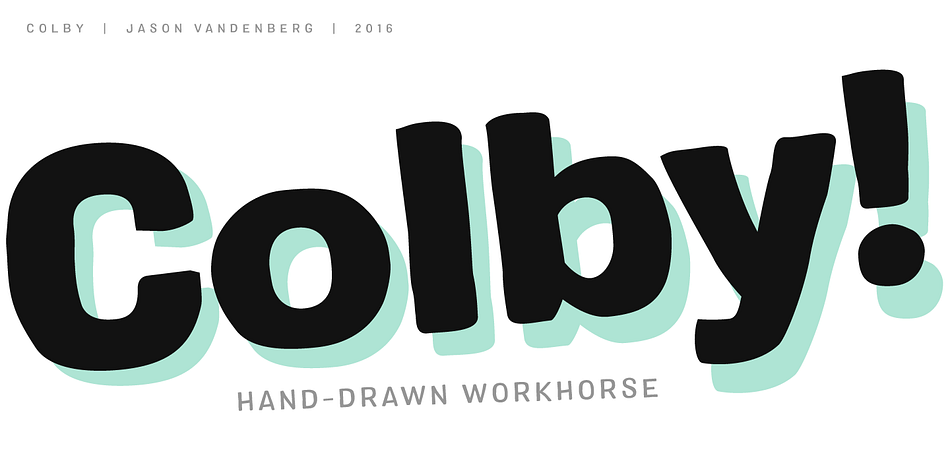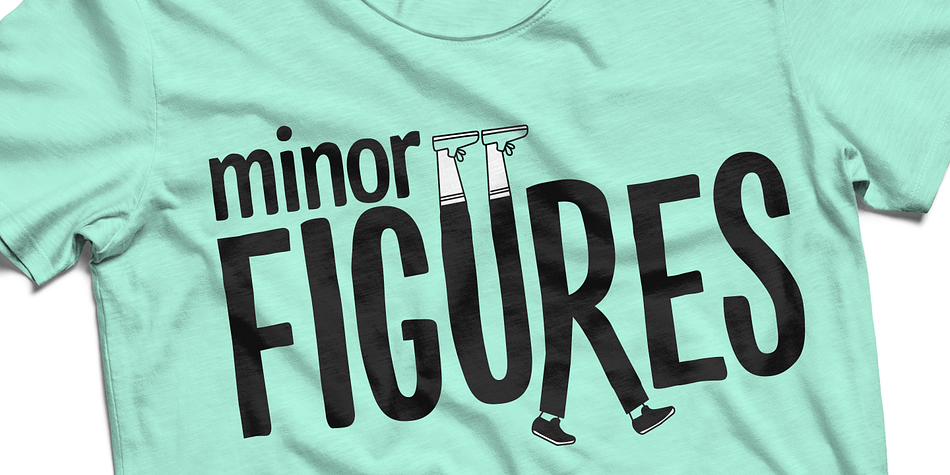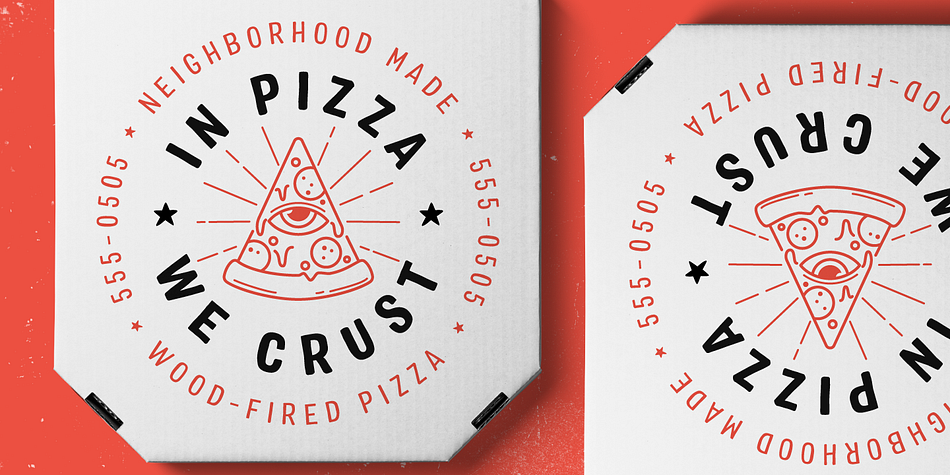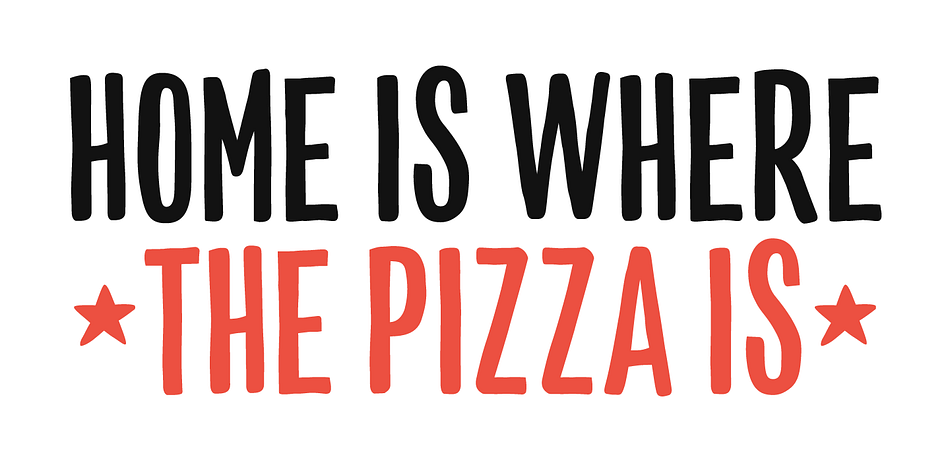
Designed by Jason Vandenberg, Colby is a display sans font family. This typeface has seventy-two styles and was published by Jason Vandenberg.
Colby is a hand-drawn workhorse sans serif family. It consists of a wide range of weights and widths for a variety of applications. Colby balances the quirkiness of hand-drawn letters with the legibility of a clean sans serif. This combination provides authentic warmth with functional benefits. The fonts feature plenty of alternates, icons and arrows to add character and customization. Colby is perfect for packaging, restaurant menus, children’s books, digital applications, but will be comfortable in any situation.